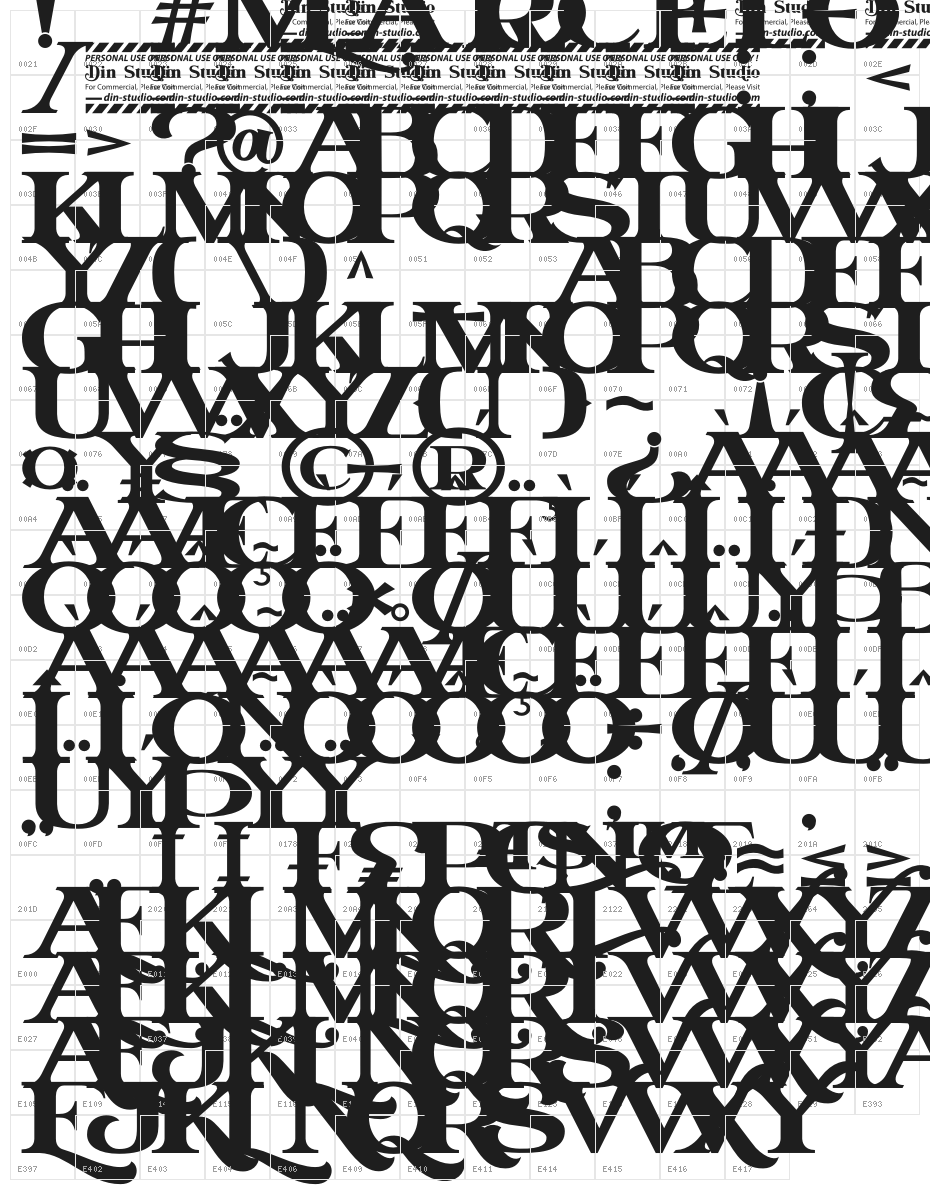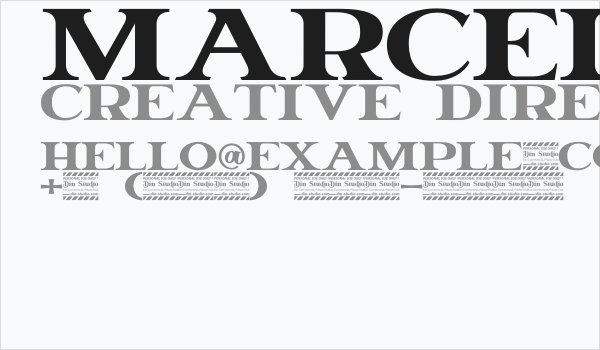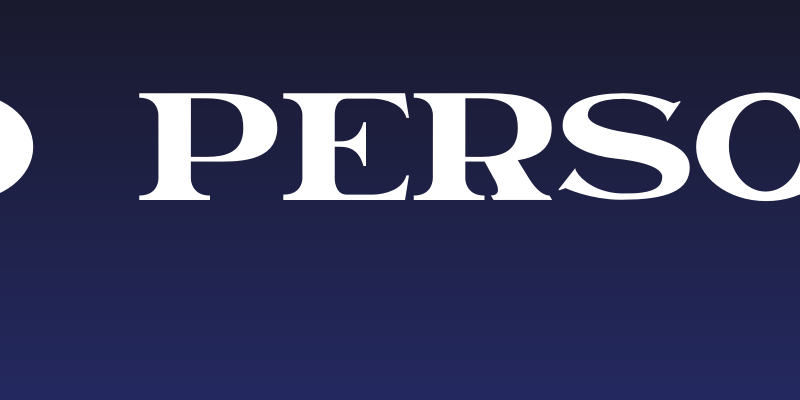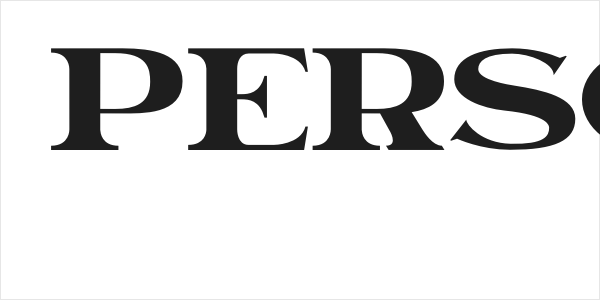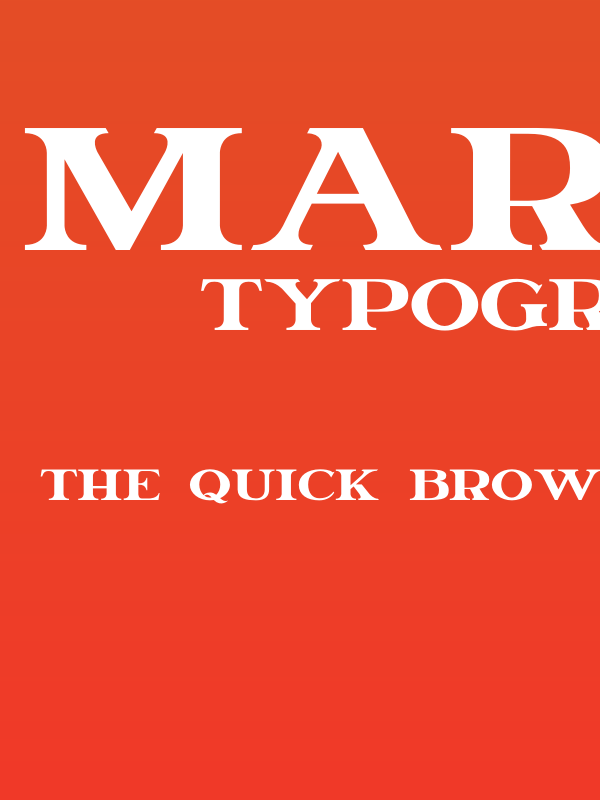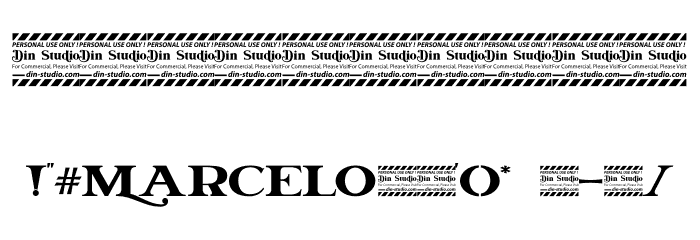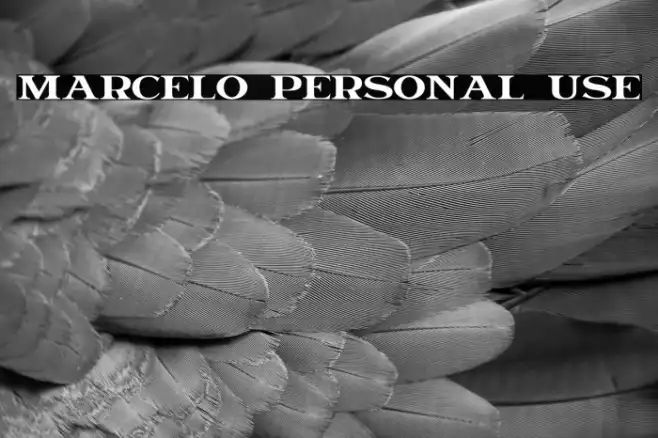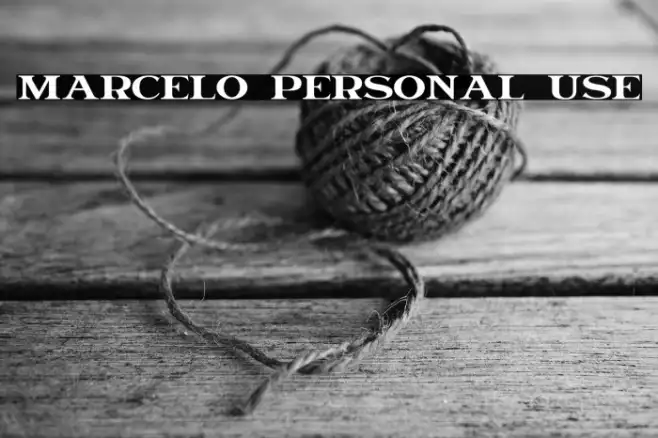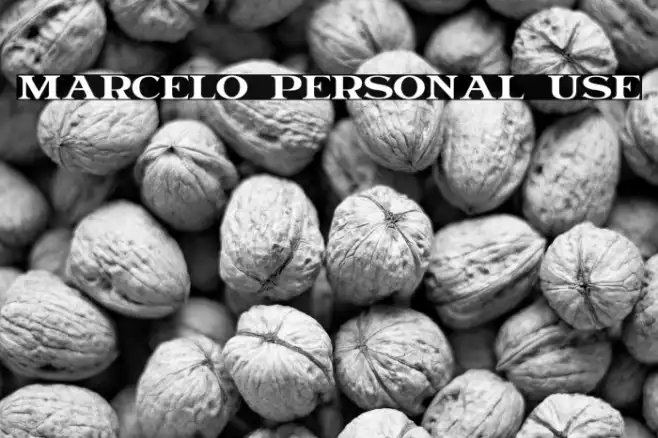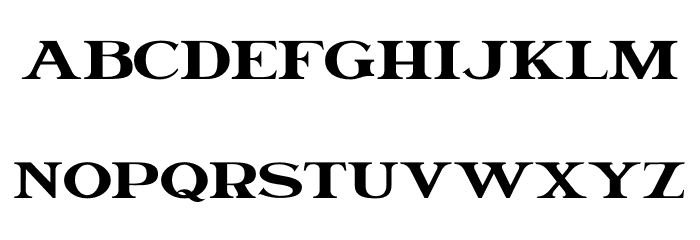
Marcelo Personal Use Font
Marcelo Personal Use Description
This font features a bold and striking serif style, characterized by its thick strokes and sharp serifs. The uppercase letters are prominent and commanding, while the lowercase letters maintain a consistent weight and style. The numerals are equally bold, ensuring readability and impact. Special characters are designed with the same attention to detail, making them stand out. The overall design is reminiscent of classic serif fonts but with a modern twist that adds a unique flair.
| Proposed Projects | Ideal for branding projects, headlines, posters, and any design requiring a strong, authoritative typeface. |